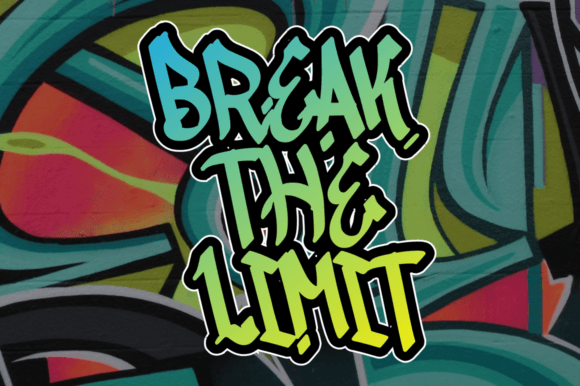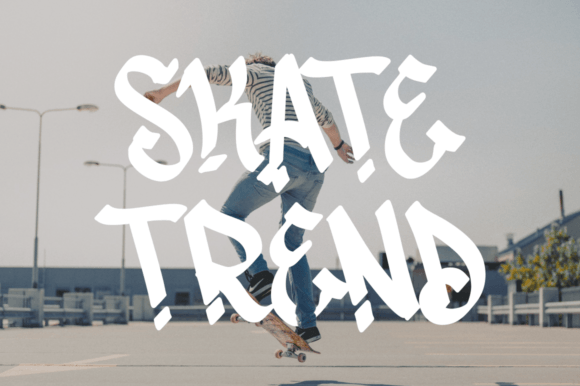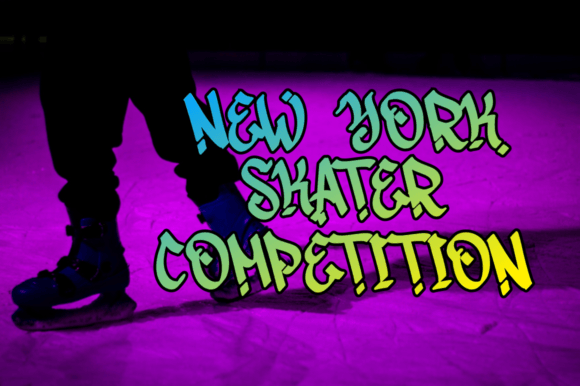
Introduction to Shock Graffiti Font
You’re in the middle of a creative project, and you’re searching for that perfect font to give it a unique touch. You scroll through your design resources, and suddenly, you stumble upon a font that screams “urban” and “bold.” That’s when you know you’ve found the one – the Shock Graffiti Font. This high-quality font is designed to make a statement, and its distinctive writing style is sure to bring a strong impression to your design.
With its transparent background and free download availability, the Shock Graffiti Font is an excellent design resource for any creative project. Whether you’re designing posters, merchandise, or even T-shirts and hoodies, this font is sure to add an urban touch that will leave a lasting impression. As a designer, you know how valuable it is to have a versatile font that can elevate your designs to the next level.
Key Features of Shock Graffiti Font
- High-quality, vector-based design for a crisp and clear display on any resolution.
- Designed with a bold, edgy aesthetic, perfect for adding a touch of urban flair to any creative project.
- Ideal for use in graphic design, digital art, and other creative projects where a unique, eye-catching font is required.
Honest Review: Shock Graffiti Font
Upon closer inspection, I found that the Shock Graffiti Font has a transparent background, which makes it easy to use in a variety of design contexts. The font itself is highly customizable and has a unique, edgy feel that’s perfect for adding a bit of attitude to your designs.
- ✨ High-quality design with a unique, edgy feel
- ✨ Transparent background makes it easy to use in various design contexts
- ⚠️ Limited font weights and styles, which may limit its versatility in certain design contexts
- ⚠️ May not be suitable for designs that require a more conservative or traditional look
Overall, I was impressed with the Shock Graffiti Font and think it’s a great addition to any designer’s toolkit. With a bit of creativity, this font can add a lot of visual interest to your designs. Just be aware of its limitations and use it accordingly.
The Shock Graffiti Font is a high-quality design resource ideal for creative projects. This font is perfect for those looking to add a unique touch to their designs.
Tips for Getting the Most Out of the Shock Graffiti Font
Use the Shock Graffiti Font on a transparent background to create a unique and eye-catching design. Experiment with different font sizes and colors to add depth and interest to your project.
The Shock Graffiti Font is ideal for a variety of creative projects, including social media graphics, posters, and flyers. It’s also perfect for adding a unique touch to presentations and documents.